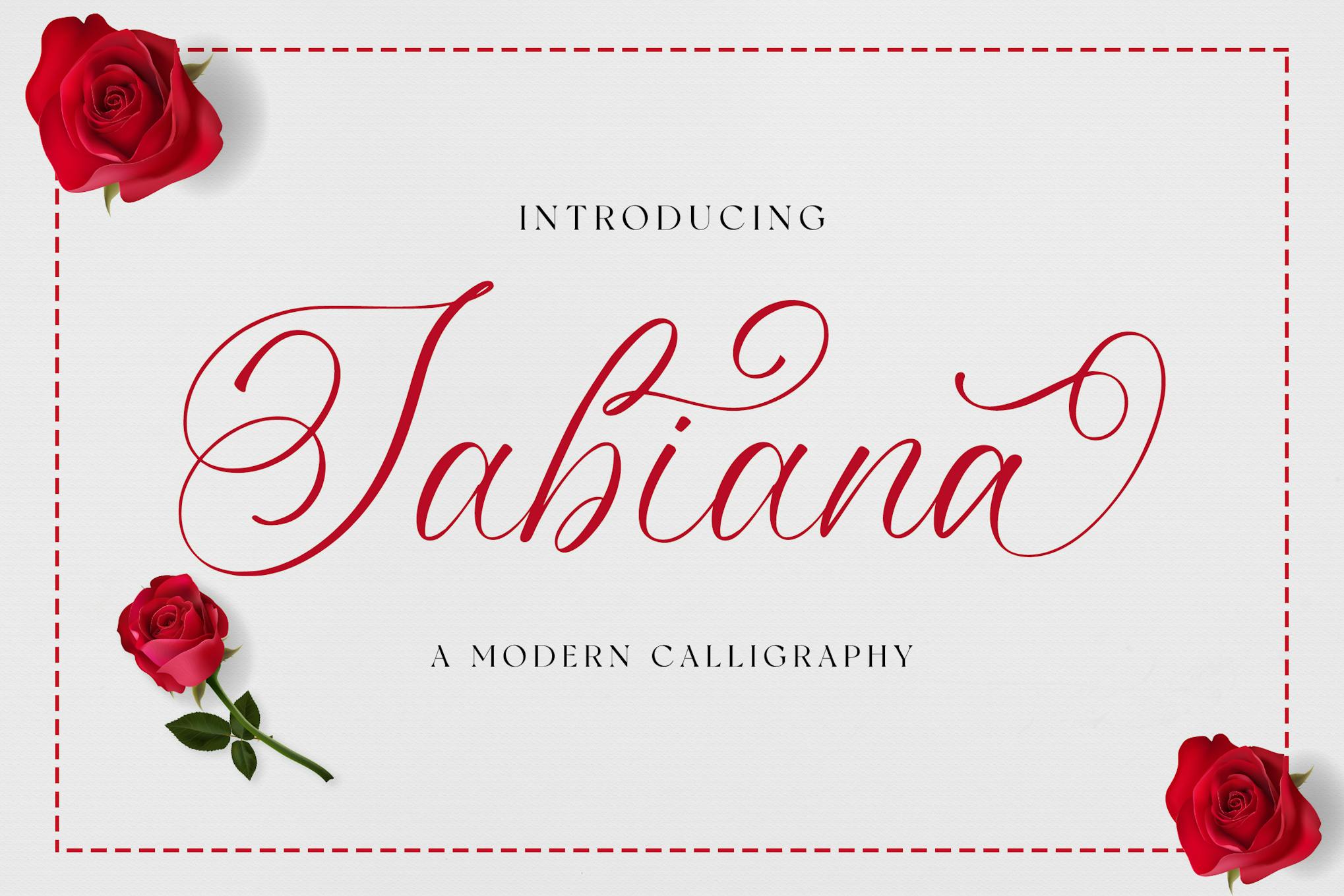
Sabiana - Wedding Font
The Sabiana - Wedding Font excels in graceful design applications including elegant wedding invitations, graceful bridal branding, sophisticated ceremony logos, refined product packaging, graceful business cards, elegant portfolios, graceful greeting cards, sophisticated social media graphics, elegant event signage, and graceful marketing materials. Its graceful script style makes it perfect for projects requiring feminine elegance that communicates grace and establishes sophisticated brand positioning with audiences seeking graceful wedding experiences and feminine sophistication.
What makes the Sabiana - Wedding Font genuinely exciting is its exceptional ability to capture the feminine grace and sophisticated beauty of elegant weddings through delicately crafted letterforms. The font features flowing, graceful strokes with feminine flourishes and elegant proportions that create a distinctly sophisticated appearance. Each character displays remarkable attention to graceful detail with feminine curves, elegant connections, and graceful spacing that give text a beautifully graceful, hand-lettered quality. The font's feminine character and graceful rhythm create an atmosphere of sophisticated elegance while maintaining graceful femininity and wedding authenticity.
The Sabiana - Wedding Font family typically includes regular weight with extensive character coverage, featuring uppercase and lowercase letters, numerals, punctuation marks, and international characters. The typeface often incorporates stylistic alternates, contextual ligatures, and graceful swashes that enhance its signature femininity. These additional elements provide designers with creative flexibility to customize text appearance and achieve more natural-looking graceful handwriting that reflects the font's feminine and elegant character.
This graceful signature font distinguishes itself through its remarkable balance of feminine charm and sophisticated elegance. Unlike masculine or harsh fonts that lack graceful appeal, Sabiana - Wedding Font embraces the power of feminine design to create graceful connections with sophisticated wedding audiences. The font's graceful character makes it essential for elegant wedding planners, feminine brands, and graceful celebration businesses where creating sophisticated wedding experiences and graceful memories is fundamental to success in elegant wedding markets.